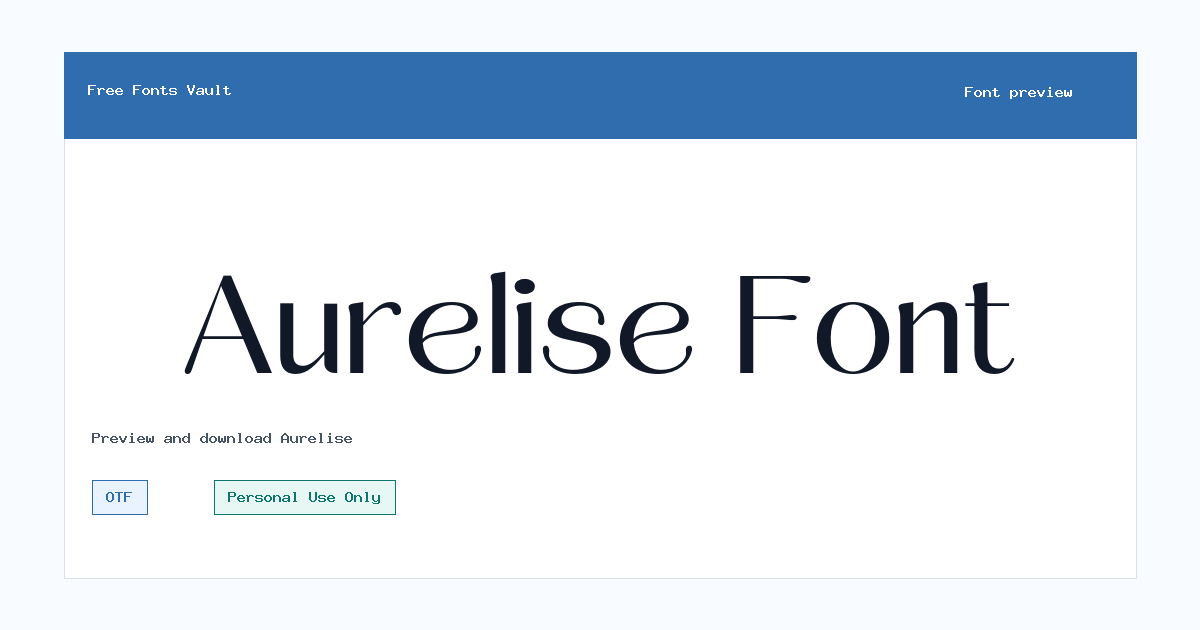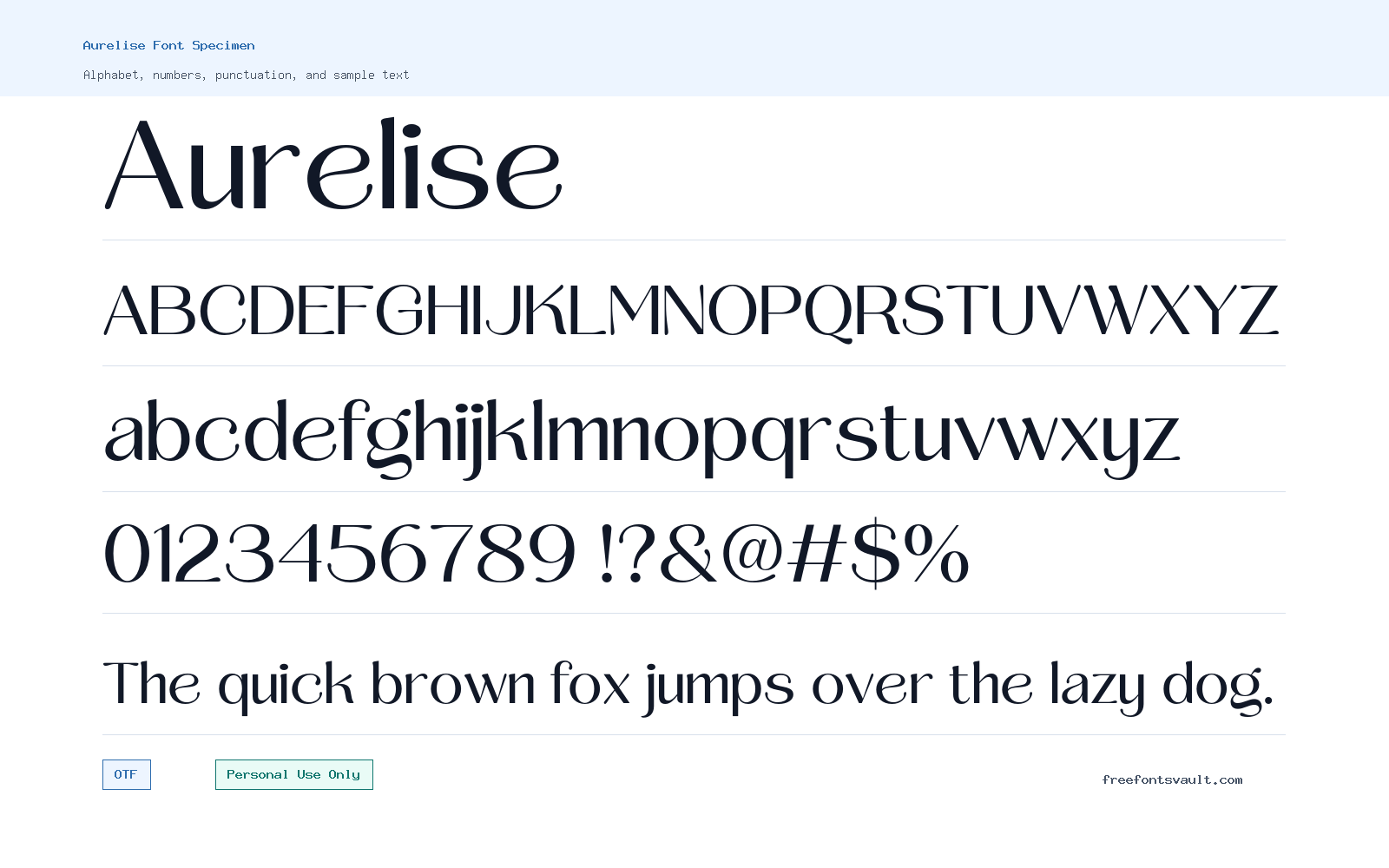
Aurelise
- Designer Akhmad Reza Fauzi
- Foundry Grezline Studio
Aurelise is a display font for personal projects, shared as a Regular OTF file. It is a good font to test when you need a headline or short text treatment that feels more custom than a basic system typeface.
Aurelise is listed as a display font, so it is best approached as a font for attention-grabbing text rather than long reading. Use the preview box to try the exact words you plan to design with, especially names, titles, brand-style phrases, and short captions. Display fonts can change character when the wording changes, so testing real text is more useful than judging it from a sample line alone.
- Display-font category, suitable for short text, titles, and decorative type settings.
- Personal posters, mood boards, social graphics, and title cards where the font is used in short lines.
- Logo drafts, name treatments, and branding experiments for practice or client concept exploration, as long as the license limit is respected.
- Pairing tests with plain body fonts, especially when you want the headline to stand apart from supporting text.
Can I use Aurelise for body text?
It is better suited to short display text. For paragraphs, pair it with a more readable text font.